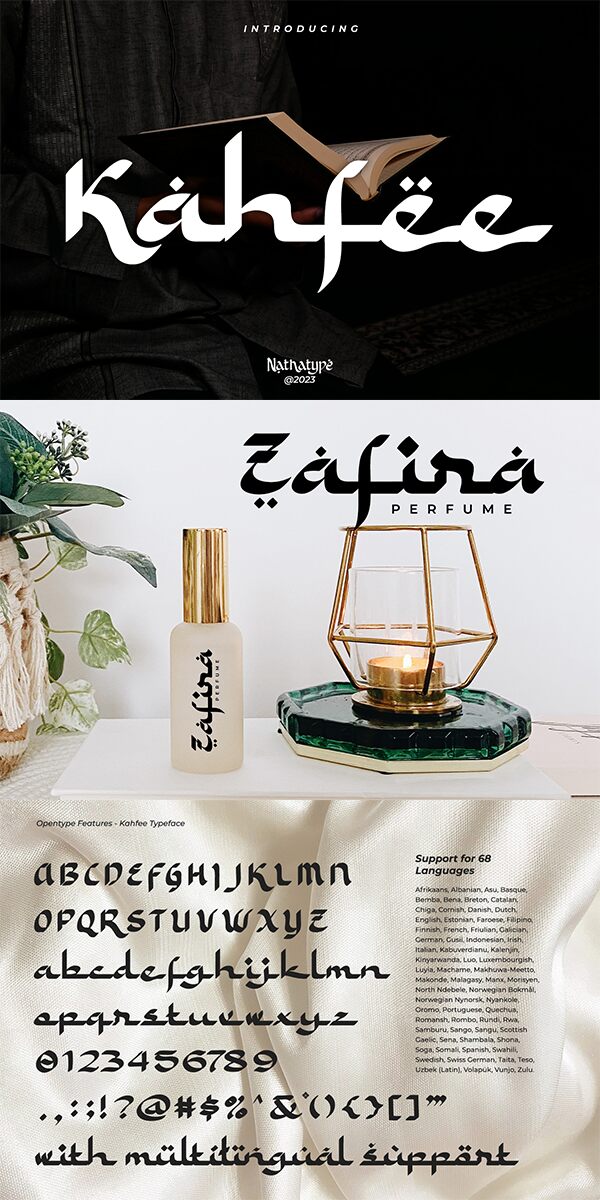
Kahfee font by Nathatype is a free foreign-style font inspired by Hebrew characters distinguished by a sleek modern structure. The letterforms have a singular design and flexible shape that makes them soft on the eye and stylishly easy to read. These subtle differences form an elegant overall appearance with contemporary qualities.
Kahfee can be used to style logos, branding material, websites, displays, and headers. It can also be used for apparel designs on t-shirts and prints on posters. Book covers, CD covers, stationery, banners, and packaging are all options.